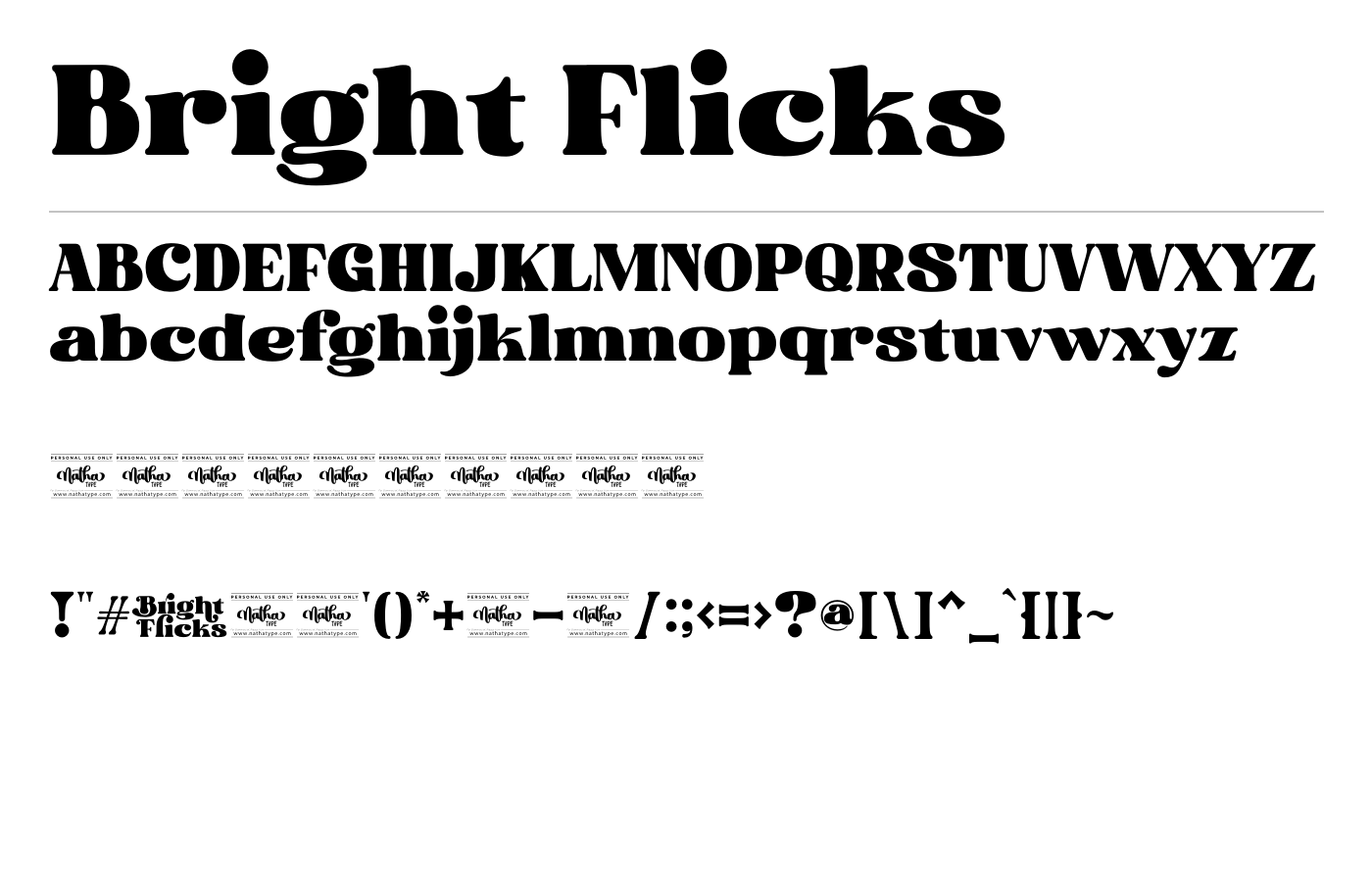
Bright Flicks is a bold slab serif font with strong, heavy strokes and distinctive bracketed serifs that give it a vintage yet commanding presence. Its wide proportions and high x-height create an impactful, readable style that works well for attention-grabbing headlines, logos, and display use in branding or editorial contexts that seek a classic, confident feel. This font’s combination of sturdy shapes and subtle curves makes it ideal for designs requiring both strength and a touch of elegance.
Bright Flicks Font
About Bright Flicks Font
| Font family | Bright Flicks Font |